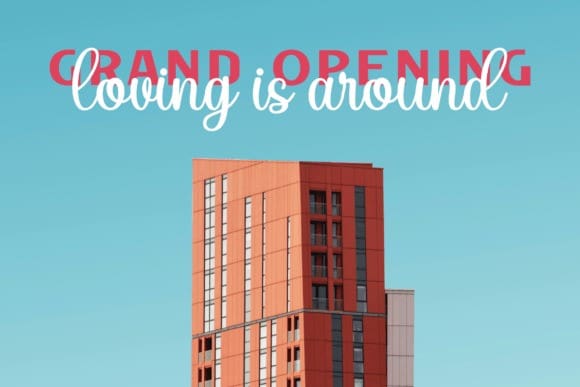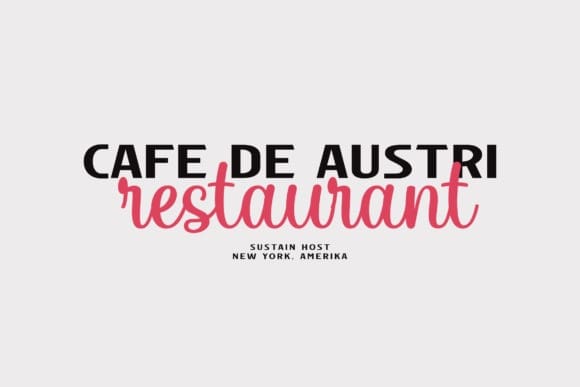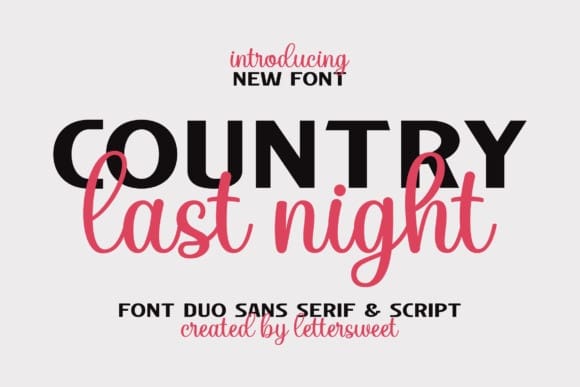
Country Last Night Font
Country Last Night Font – an extraordinary font duo weaving charm with a modern twist. When harmoniously merged, this font pair manifests an unrivaled spark capable of elevating any design project to unprecedented heights. Ideal for an expansive range of uses, Country Last Night seamlessly blends into branding endeavors, logo creations, wedding design elements, social media messages, and engaging advertisements. Its versatility doesn’t stop there. Product packaging, labels, dreamy photography watermarks, captivating invitations, and beautiful stationery can all benefit from the unique touch of Country Last Night. Embrace this font duo for all your creative projects, it’s designed to make your work stand out.